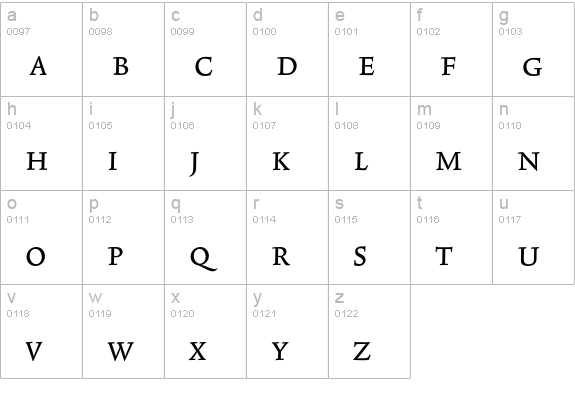
TriniteNo1-RomanWideExp is a captivating and versatile font that effortlessly combines elegance and modernity. It boasts a wide and bold appearance, making it perfect for attention-grabbing headlines, impactful titles, and creative designs. With its clean lines and distinct letterforms, TriniteNo1-RomanWideExp exudes a sense of confidence and strength. Each character is meticulously crafted, ensuring legibility and readability in both print and digital mediums. This font's versatility knows no bounds, as it seamlessly adapts to various design projects, whether it be branding, advertising, editorial layouts, or even personal creative endeavors. Its bold presence commands attention, leaving a lasting impression on any audience. One of the most remarkable aspects of TriniteNo1-RomanWideExp is that it is available for free. This means that you can easily access and download this font from FontsMarket.com, without the need to worry about any additional costs. Its freely available nature makes it an excellent choice for both professional designers and enthusiasts alike. Intriguing, powerful, and effortlessly stylish, TriniteNo1-RomanWideExp is a font that truly stands out from the crowd. Its wide range of applications and its free availability further enhance its appeal, making it a must-have in any designer's toolkit. So why wait? Download TriniteNo1-RomanWideExp today and let your creativity soar to new heights.